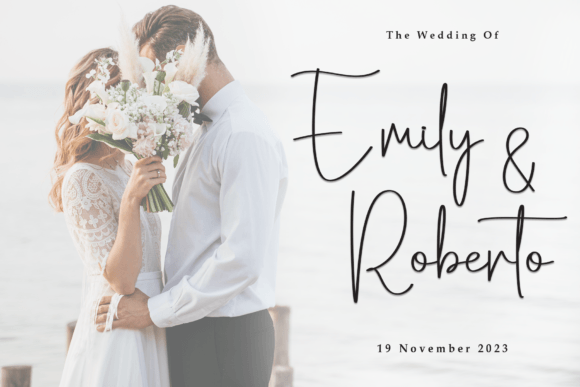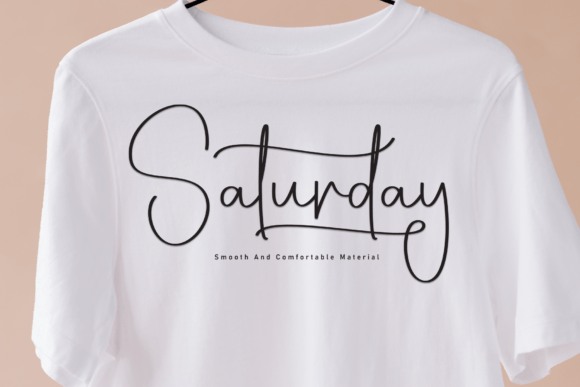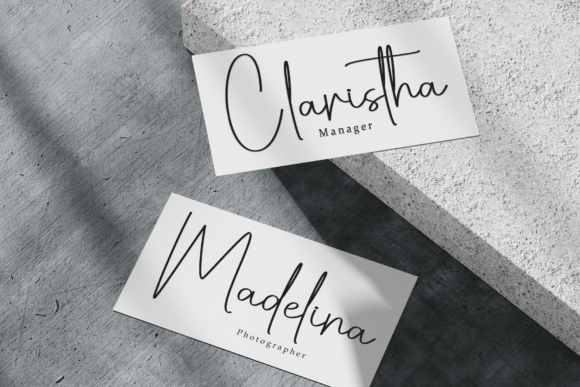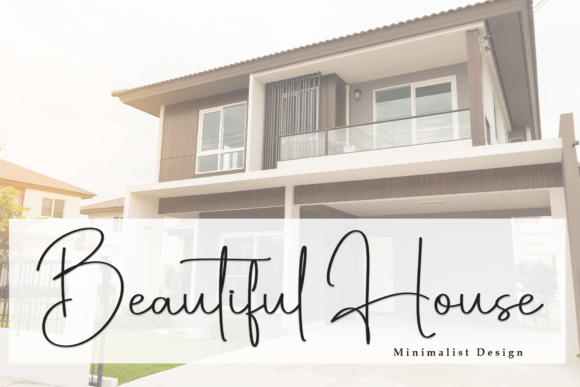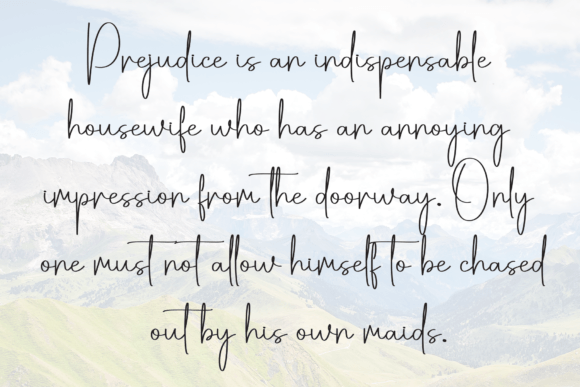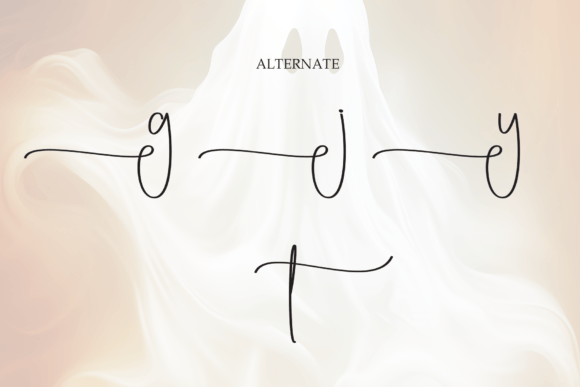
The Elusive Font: A Love Letter to Ghostimage
I’ll never forget the frustration of working on a project, hours poured into every detail, only to be stumped by one thing: finding the perfect font. My client wanted something elegant, yet modern; a font that would make their brand stand out without looking too flashy. I scoured the internet, tried countless combinations, but nothing seemed quite right. That was until I stumbled upon Ghostimage – an exquisite handwritten font that instantly captured my heart.
First Impressions: A Designer’s Delight
Ghostimage is masterfully designed to become a true favorite among designers, crafters, and creative hobbyists alike. It maintains its classy calligraphic influences while feeling contemporary and fresh. The fluid strokes, the elegant connections between letters, and the subtle variations in line width all contribute to its unique charm. **It’s the perfect blend of traditional and modern design elements**.
- ✨ Elegant and sophisticated design
- ✅ Highly versatile for various projects, from branding to wedding invitations
- 💫 Beautifully crafted to evoke a sense of luxury and refinement
- 🎨 Perfect for designers looking to add a touch of personality to their work
While Ghostimage is an exceptional font, there are a few things to keep in mind:
- ⚠️ Some characters may require manual kerning for optimal results
- 🤔 Limited availability of certain OpenType features in certain software
- Experiment with OpenType features, such as stylistic alternates, to add visual interest
Exploring Alternatives: Similar Fonts to Ghostimage
The Story Behind Ghostimage: Designer Inspiration
Legend has it that the designer behind Ghostimage was inspired by the art of calligraphy and the elegance of handwritten letters. With a passion for typography and a keen eye for detail, they crafted Ghostimage to be a timeless font that would evoke emotions and add a touch of sophistication to any design project.
Q: What makes Ghostimage suitable for branding projects?
A: Ghostimage’s elegant design and versatile nature make it an excellent choice for branding projects, allowing businesses to establish a strong visual identity.
Q: How does Ghostimage compare to other script fonts?
A: Ghostimage stands out from other script fonts due to its unique blend of traditional calligraphic influences and modern design elements, making it both elegant and fresh.
Q: Is Ghostimage easy to read?
A: Yes, Ghostimage is designed to be legible and easy to read, even at smaller font sizes, making it suitable for a wide range of design applications.